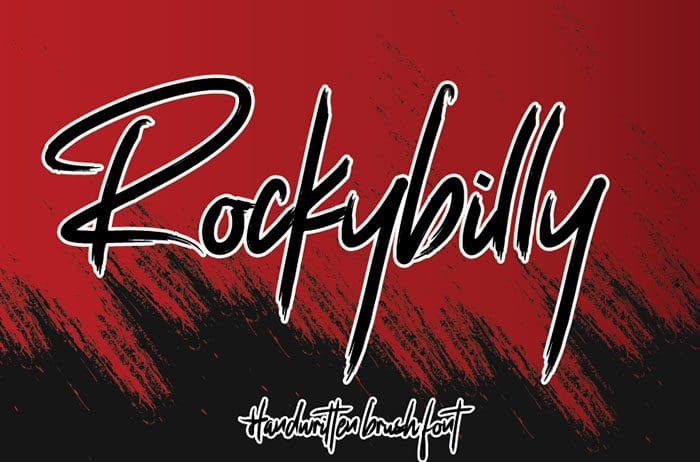
Free Rockybilly brush font is a super handwritten brush font bursting with energy. It features extra attention to quick strokes and sharp details. Designed this font by Thomas Aradea. You can also search more free Brush Fonts. Thanks!